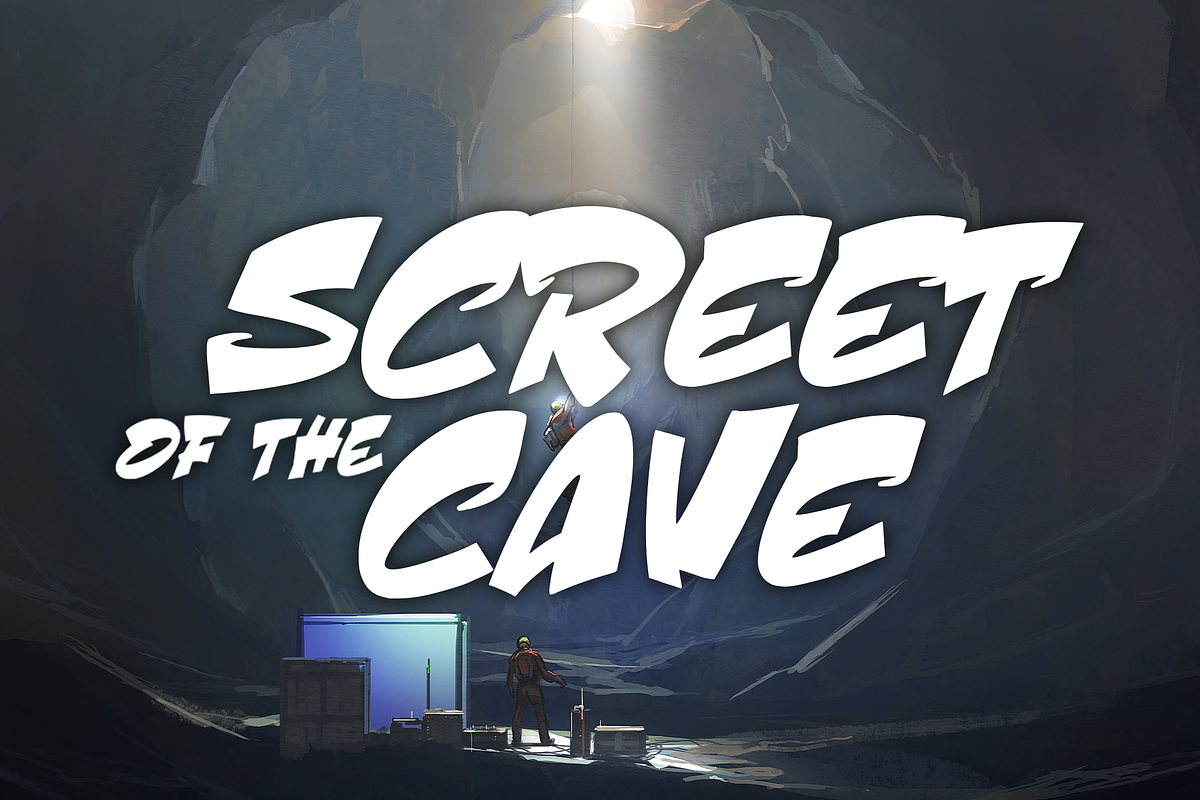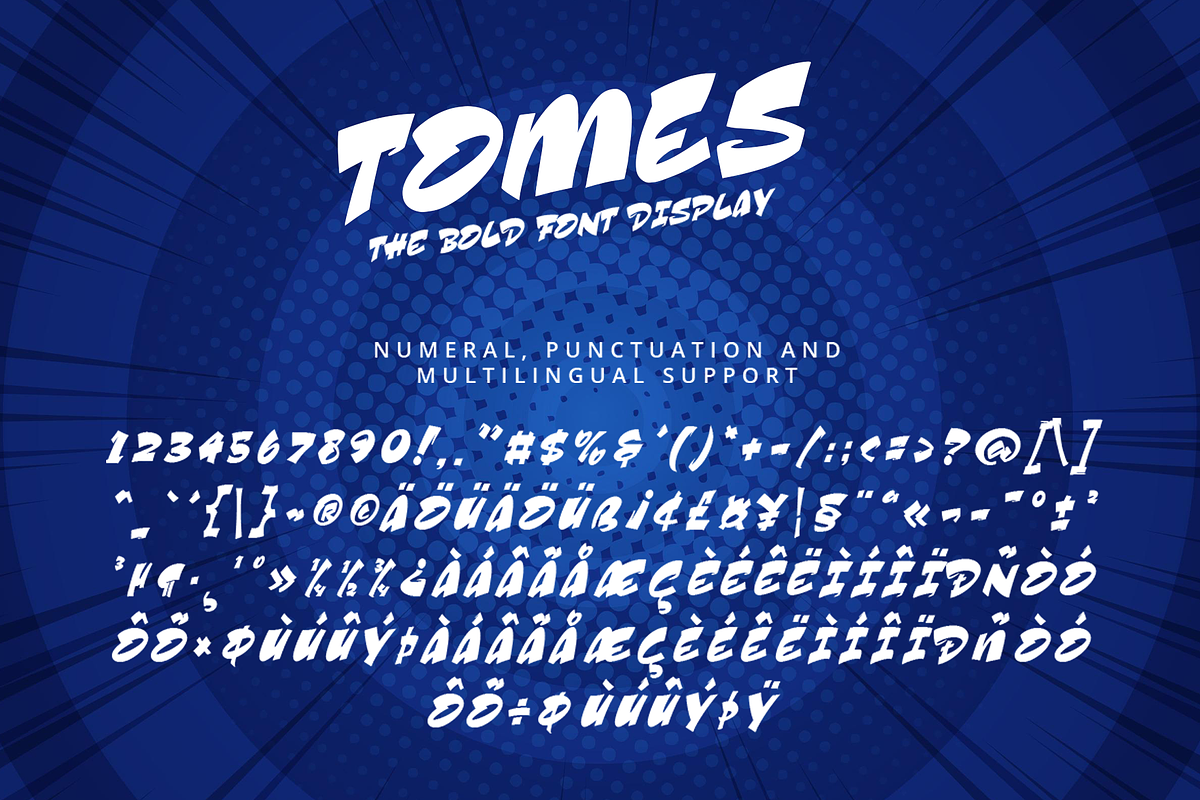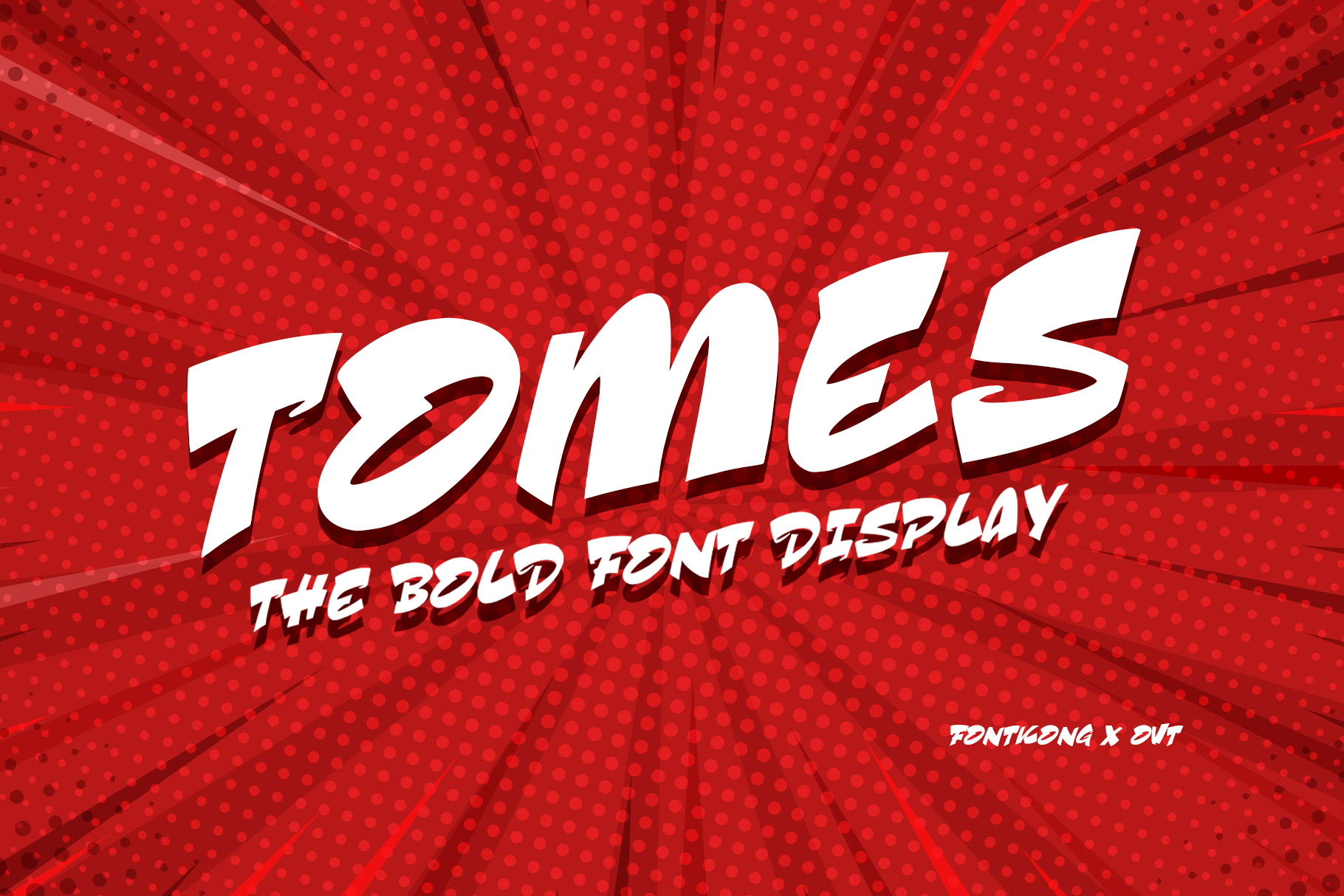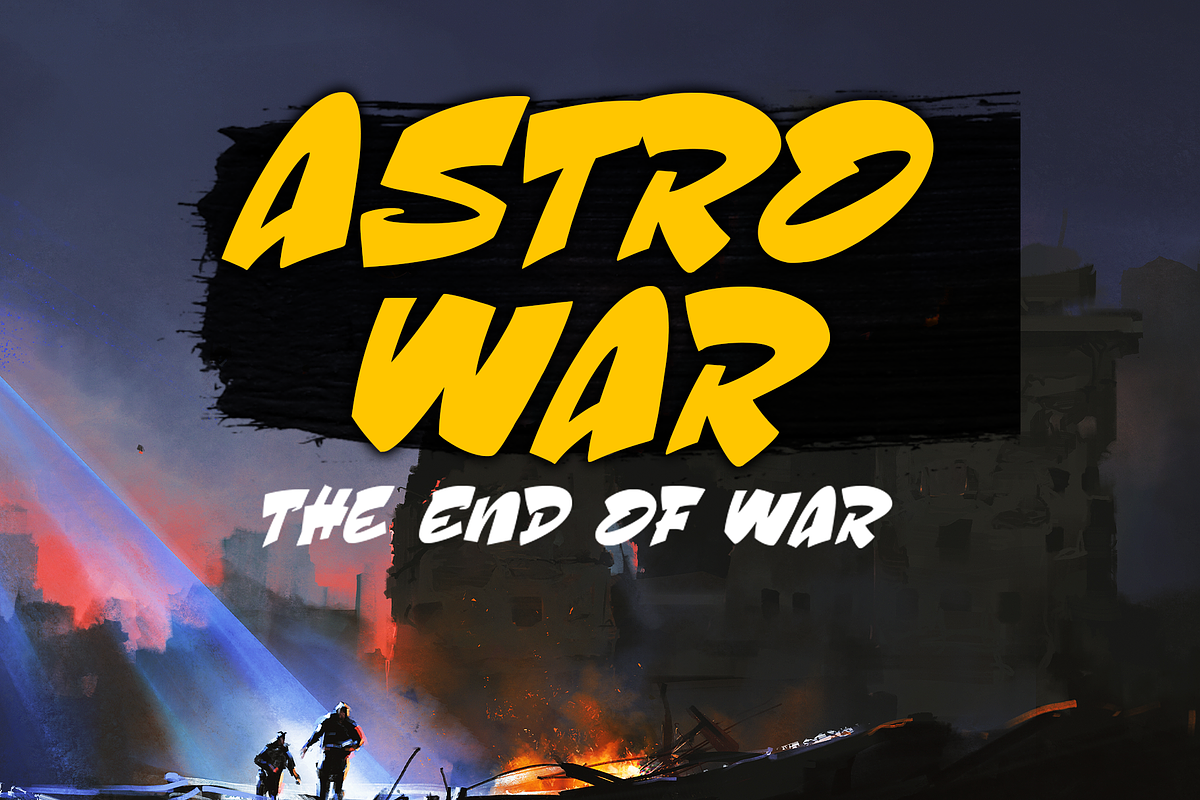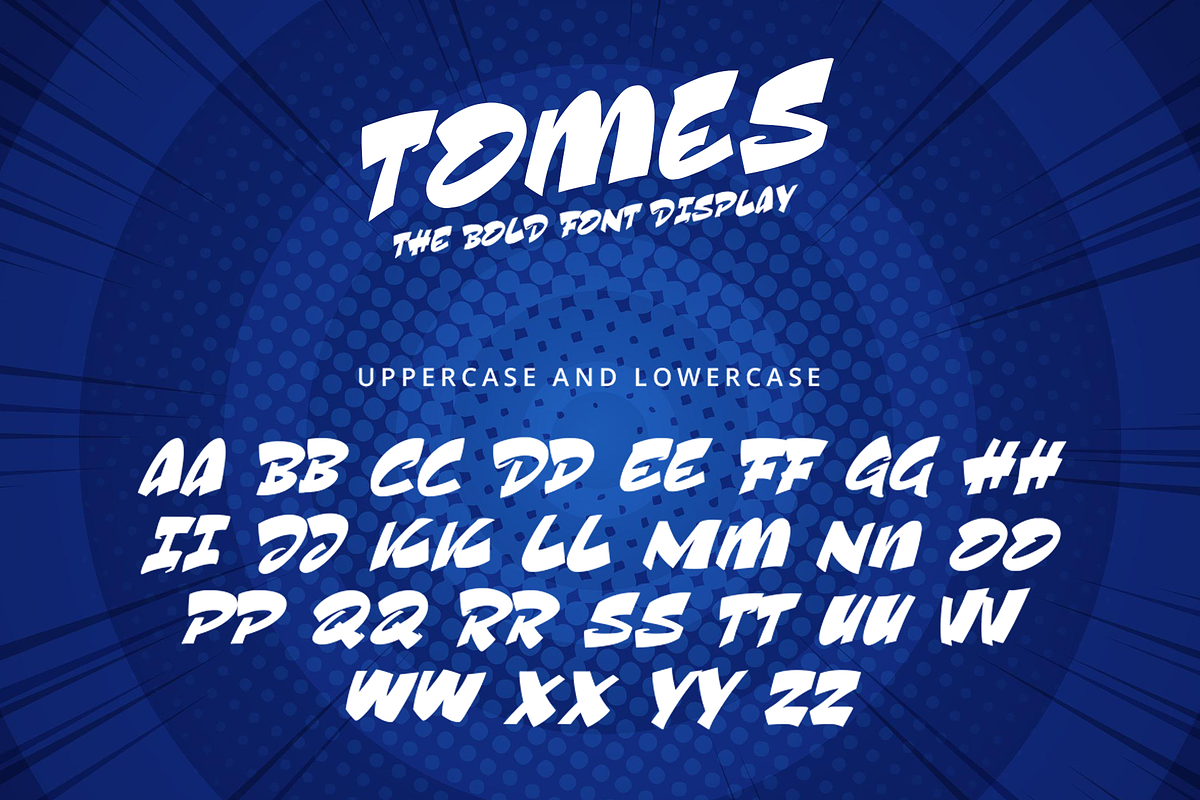
Tomes - The Bold Display Font
Introducing "Tomes," the bold display font that commands attention and makes a powerful statement. Perfect for designers, advertisers, and creatives who want to leave a lasting impression, Tomes offers an unapologetically bold and striking aesthetic.
Ideal for headlines, posters, banners, logos, and branding materials, Tomes’s strong lines and assertive character shapes provide a commanding and authoritative look. Each letter is meticulously crafted to ensure maximum impact and readability, making it perfect for projects that demand attention and confidence.
The "Tomes" font includes a full set of uppercase letters, numbers, punctuation marks, and special characters. This simplicity and focus on boldness allow for easy integration into various design applications, from impactful headlines to memorable logos.
Make your message heard loud and clear with Tomes, the bold display font that exudes confidence and power.